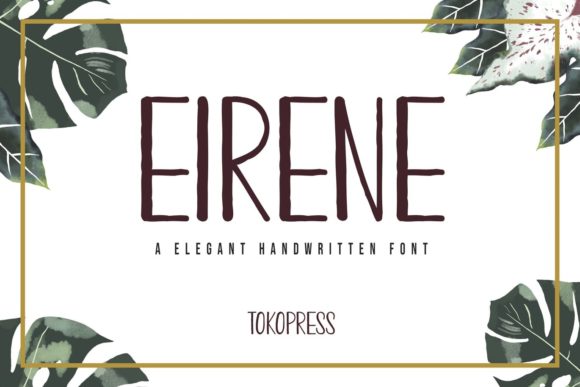
**Eirene: The Sans Serif Font for Eye-Catching Headlines and YouTube Banners**
Allow us to introduce Eirene, the minimal and neat sans serif font that will elevate your designs to new heights. Its clean lines and subtle curves exude a touch of elegance, making it perfect for creating visually captivating headlines, logos, and YouTube banners that demand attention.
**Effortless Versatility for All Your Creative Endeavors**
Eirene's versatility knows no bounds. Whether you're crafting a minimalist website, designing a stylish brand identity, or creating engaging social media posts, this font will effortlessly complement your vision and make your message shine. Its ability to seamlessly adapt to various design styles ensures that your projects will stand out from the crowd.
**Unleash Your Creativity with Boundless Possibilities**
With Eirene at your fingertips, the possibilities are endless. Let your creativity soar as you explore a wide array of design applications. From eye-catching headlines that grab attention to elegant logos that leave a lasting impression, Eirene empowers you to express yourself with confidence and style.
**Craft YouTube Banners That Captivate and Convert**
In the competitive world of YouTube, it's crucial to make a strong first impression. Eirene's clean and modern aesthetic is the perfect choice for creating YouTube banners that entice viewers and leave a lasting impact. Whether you're showcasing your latest video or promoting your channel, Eirene will elevate your presence and attract a loyal following.
**Experience the Eirene Difference Today**
Don't settle for ordinary fonts that blend into the background. Choose Eirene, the sans serif font that will transform your designs into works of art. Its timeless appeal and versatility will empower you to create captivating visuals that connect with your audience and leave an unforgettable impression.